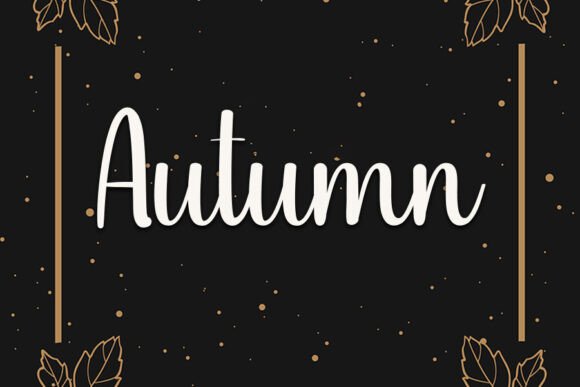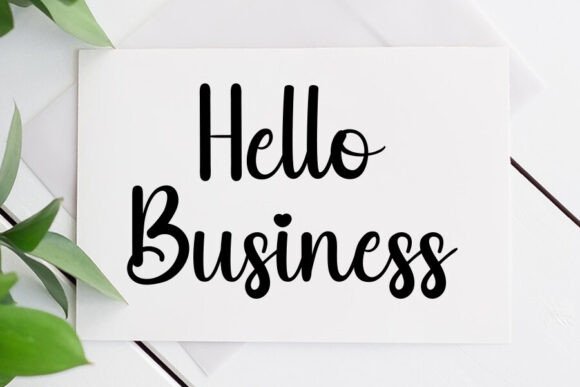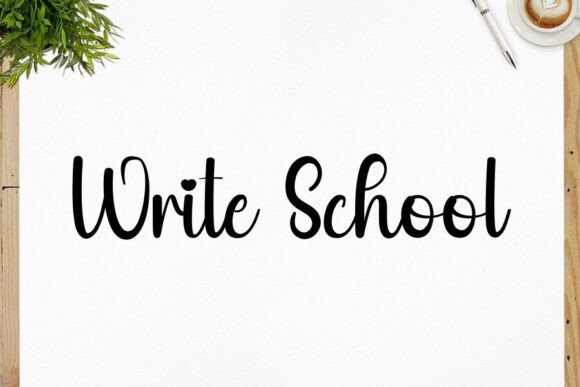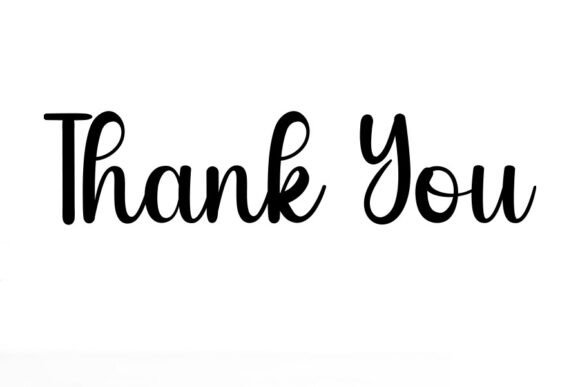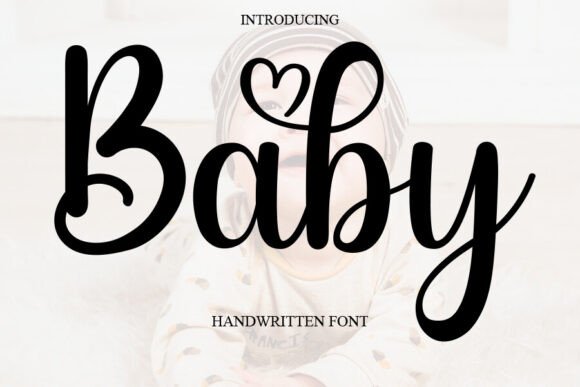
Baby Font: The Simple Handwritten Font for a Natural Feel
Baby Font is a charming, simple handwritten font designed to bring a touch of warmth and personality to your projects. With its versatility and wide range of applications, this font is perfect for designers, crafters, and anyone looking to add a personal touch to their creations.
What is Baby Font?
Baby Font is a carefully crafted handwritten font that exudes a sense of simplicity and elegance. Its smooth, flowing lines and rounded edges give it a friendly and approachable feel, making it perfect for a variety of design projects. Whether you’re creating greeting cards, headlines, or any other type of visual content, Baby Font is guaranteed to add a simple and natural feel to your work.
Key Features of Baby Font
- Simple and Handwritten: Baby Font features a simple, handwritten design that’s perfect for creating a personal and intimate feel.
- Versatile: With its wide range of applications, Baby Font can be used for everything from greeting cards to headlines, and even social media graphics.
- Natural Feel: The font’s smooth lines and rounded edges give it a natural, organic feel that’s perfect for creating a sense of warmth and connection.
- Elegant: Despite its simplicity, Baby Font has an elegant quality that makes it perfect for high-end designs and projects.
Applications of Baby Font
Baby Font’s versatility makes it suitable for a wide range of design projects, including:
- Greeting Cards: Add a personal touch to your greeting cards with Baby Font’s charming handwritten design.
- Headlines: Use Baby Font to create eye-catching headlines that are both elegant and simple.
- Social Media Graphics: Add a touch of personality to your social media graphics with Baby Font’s natural and friendly feel.
- Branding: Use Baby Font to create a unique and memorable brand identity that stands out from the crowd.
- Crafting: Perfect for crafters, Baby Font can be used to create beautiful and personalized crafts, such as handmade cards and gift tags.
Benefits of Using Baby Font
By using Baby Font in your design projects, you can:
- Add a Personal Touch: Baby Font’s handwritten design adds a personal touch to your projects, making them more relatable and engaging.
- Create a Natural Feel: The font’s natural and organic feel helps to create a sense of warmth and connection with your audience.
- Stand Out: Baby Font’s unique and elegant design helps your projects stand out from the crowd and grab attention.
- Save Time: With Baby Font, you can create beautiful and professional-looking designs in no time, saving you time and effort.
Tips for Using Baby Font
Here are some tips for getting the most out of Baby Font:
- Pair with Other Fonts: Experiment with pairing Baby Font with other fonts to create a unique and visually appealing design.
- Use for Headlines and Titles: Use Baby Font for headlines and titles to add a touch of elegance and sophistication.
- Add a Personal Touch: Use Baby Font to add a personal touch to your designs, such as in quotes, testimonials, or captions.
Baby Font is a versatile and charming handwritten font that’s perfect for designers, crafters, and anyone looking to add a personal touch to their projects. With its wide range of applications, natural feel, and elegant design, Baby Font is guaranteed to bring a simple and natural feel to your next project. So why not give Baby Font a try and see the difference it can make?